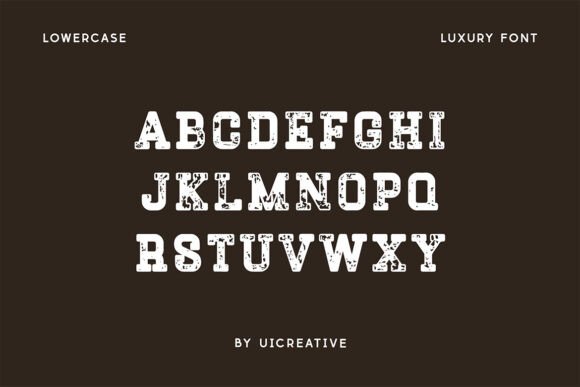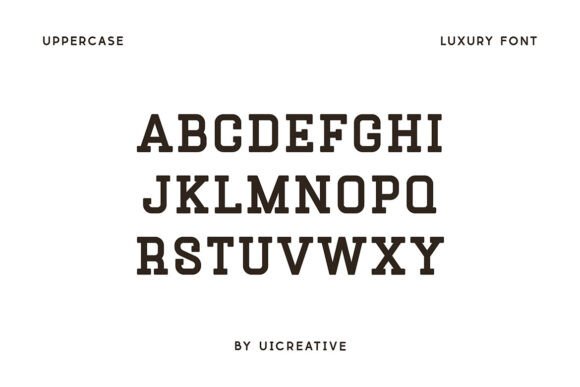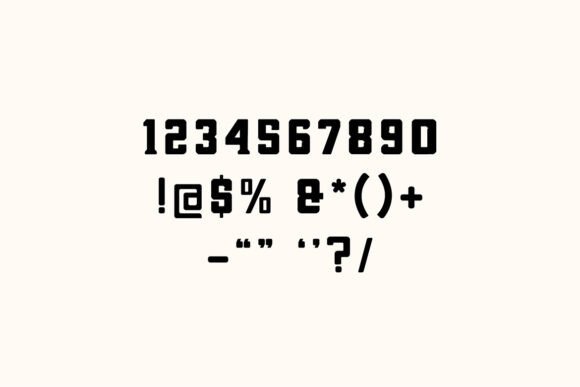
Introduction to Slab Soldier Font
Have you ever been stuck on a design project, staring at a blank page, searching for the perfect font to bring your vision to life? That’s exactly where I found myself a few months ago, working on a branding project for a fashion client. As I browsed through my favorite design resources, one font caught my eye – the Slab Soldier Font. Its modern display style felt elegant and classy, exuding a sense of sophistication that I knew would be perfect for my client’s high-end fashion brand.
As a designer, I can attest to the value of having a reliable design resource like the Slab Soldier Font in your toolkit. With its versatility and high-quality aesthetic, this font is ideal for a wide range of creative projects, from signature and stationery to logo design and magazine covers. And the best part? It’s available for free download, making it a valuable addition to any designer’s collection.
Key Features of Slab Soldier Font
- High-quality, bold font with a modern aesthetic, perfect for creative projects
- Unique, slab-serif design with a strong, rugged feel that’s ideal for headlines and titles
Honest Review: Slab Soldier Font
As a designer, I’m always on the lookout for high-quality design resources to enhance my creative projects. The Slab Soldier Font is one such resource that caught my attention. I’ve had a chance to work with it, and here’s my honest review.
- The font’s bold and robust design makes it perfect for headings and titles in any project.
- The high-quality design ensures that the font looks great even on a transparent background.
- The font family is limited, and there aren’t many variations to choose from.
- The font may not be suitable for smaller text sizes due to its bold design.
Overall, I think the Slab Soldier Font is a great addition to any designer’s toolkit. It’s perfect for projects that require a bold and eye-catching font. While it may have some limitations, the free download option and high-quality design make it a great value for designers.
Common Use Cases for Slab Soldier Font
The Slab Soldier Font is ideal for a variety of creative projects, including social media graphics, posters, flyers, logos, business cards, brochures, presentations, reports, and documents. Its high-quality design and transparent background make it a versatile design resource for any project.
Can I customize the Slab Soldier Font to fit my design needs?
Yes, the Slab Soldier Font is highly customizable. You can use font editing software to modify the font’s characteristics, such as its size, color, and style. Additionally, you can use the font in conjunction with other design elements, such as images and graphics, to create a unique and visually appealing design.